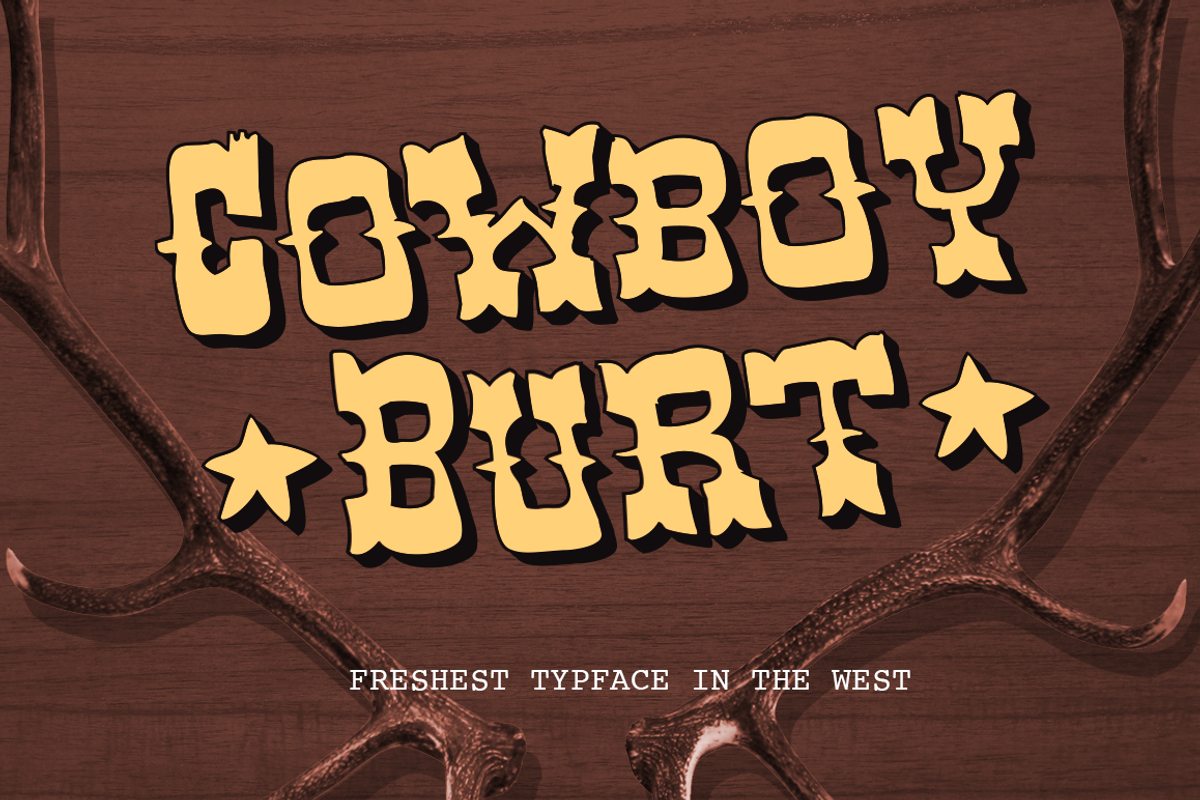
Cowboy Burt Font Free Download is a rugged and bold typeface that captures the spirit of the Wild West. With its vintage western flair and sturdy letterforms, Cowboy Burt is perfect for saloon-style signage, country music posters, rodeo flyers, rustic branding, and themed merchandise. It brings that classic cowboy energy to any project that needs grit and personality.
Crafted to evoke the charm of old frontier towns, Cowboy Burt Font Free Download features slab serifs, strong lines, and a weathered look that stands out in display settings. Whether you're designing for a western event or adding Americana vibes to your work, this font delivers authenticity and character.